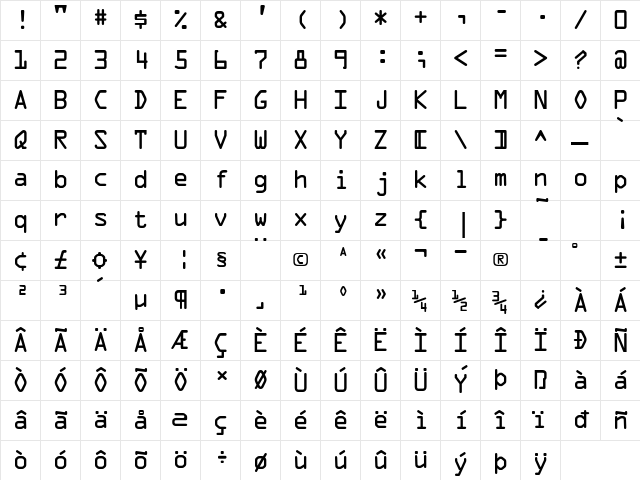
MicroscanA Regular
MicroscanA Family
Complete MicroscanA Regular glyph index. Displaying only characters natively supported by MicroscanA Regular font.
Design Context for MicroscanA
MicroscanA is a composed and adaptable typeface that performs quietly and consistently across a wide range of design contexts.